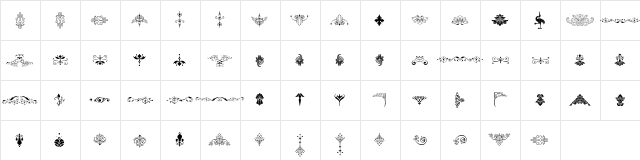
Soft Ornaments Eleven Regular
Design Context for Soft Ornaments Eleven Typeface
Soft Ornaments Eleven brings ornamental detail and strong personality to headlines and identities, where visual impact matters more than quiet functionality.
Font Pairing: Pair with a clean neutral sans-serif for body copy to let Soft Ornaments Eleven's character lead without overwhelming the composition.
Pro Tip: Treat Soft Ornaments Eleven as the centrepiece of your typographic hierarchy. One strong heading set in a decorative face can carry an entire layout.